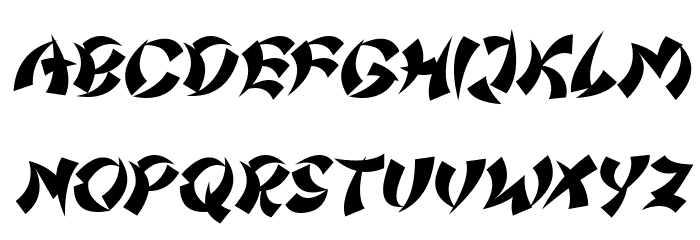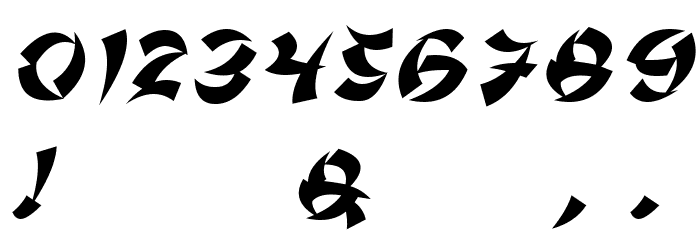
Chinatown Champs Italic Font
This font features a bold and dynamic style with a strong emphasis on angular shapes and sharp edges. The characters are designed with a unique flair, incorporating elements that suggest movement and energy. The uppercase and lowercase letters maintain a consistent aesthetic, with each character exhibiting a distinct, almost calligraphic quality. The numbers and special characters follow the same design principles, ensuring a cohesive look across all glyphs. This font's striking appearance makes it ideal for projects that require a bold statement.
A bold, angular font with a dynamic and energetic style.
- Font: Chinatown Champs Italic
- Proposed Projects: Ideal for branding, posters, and headlines that need a strong visual impact.